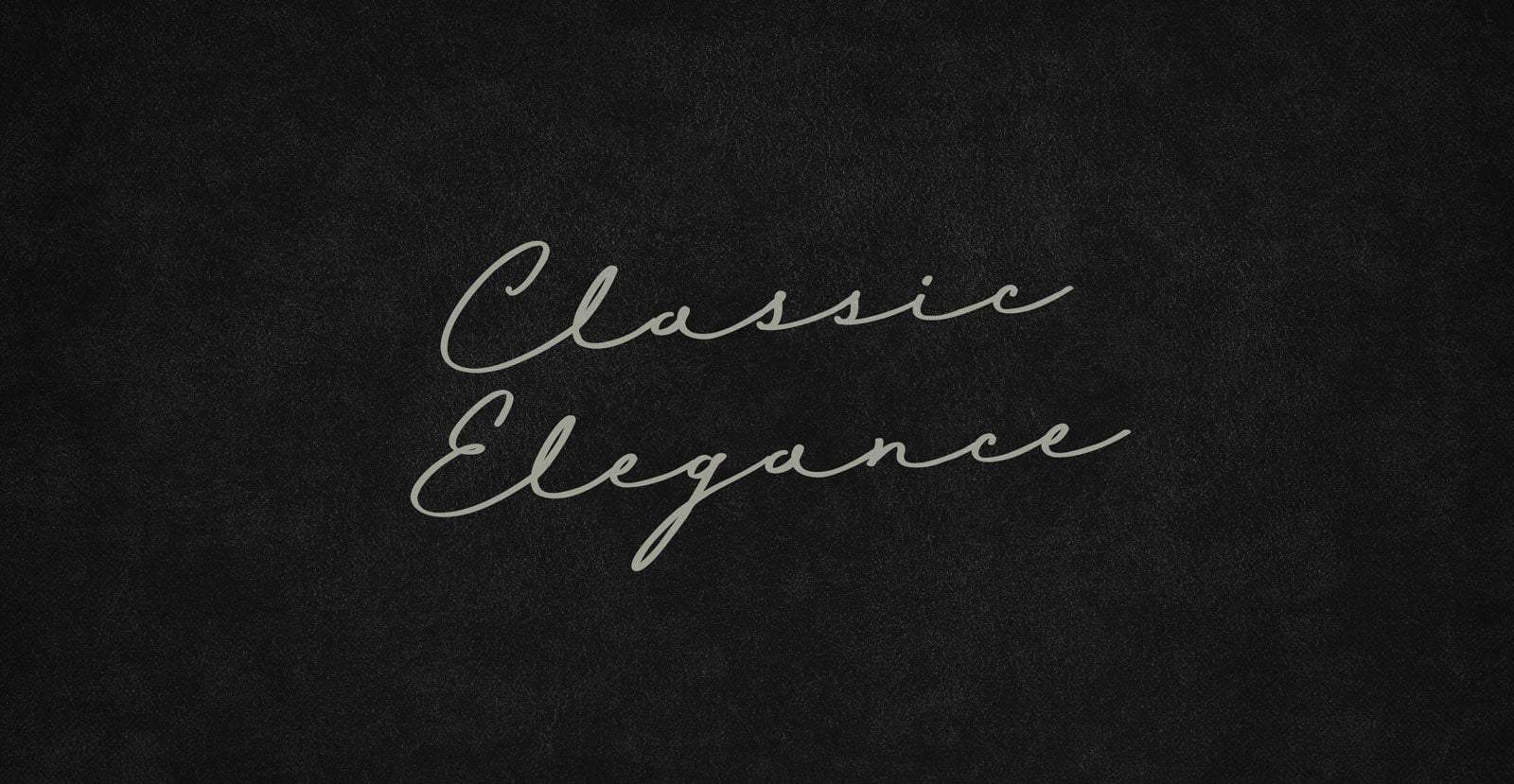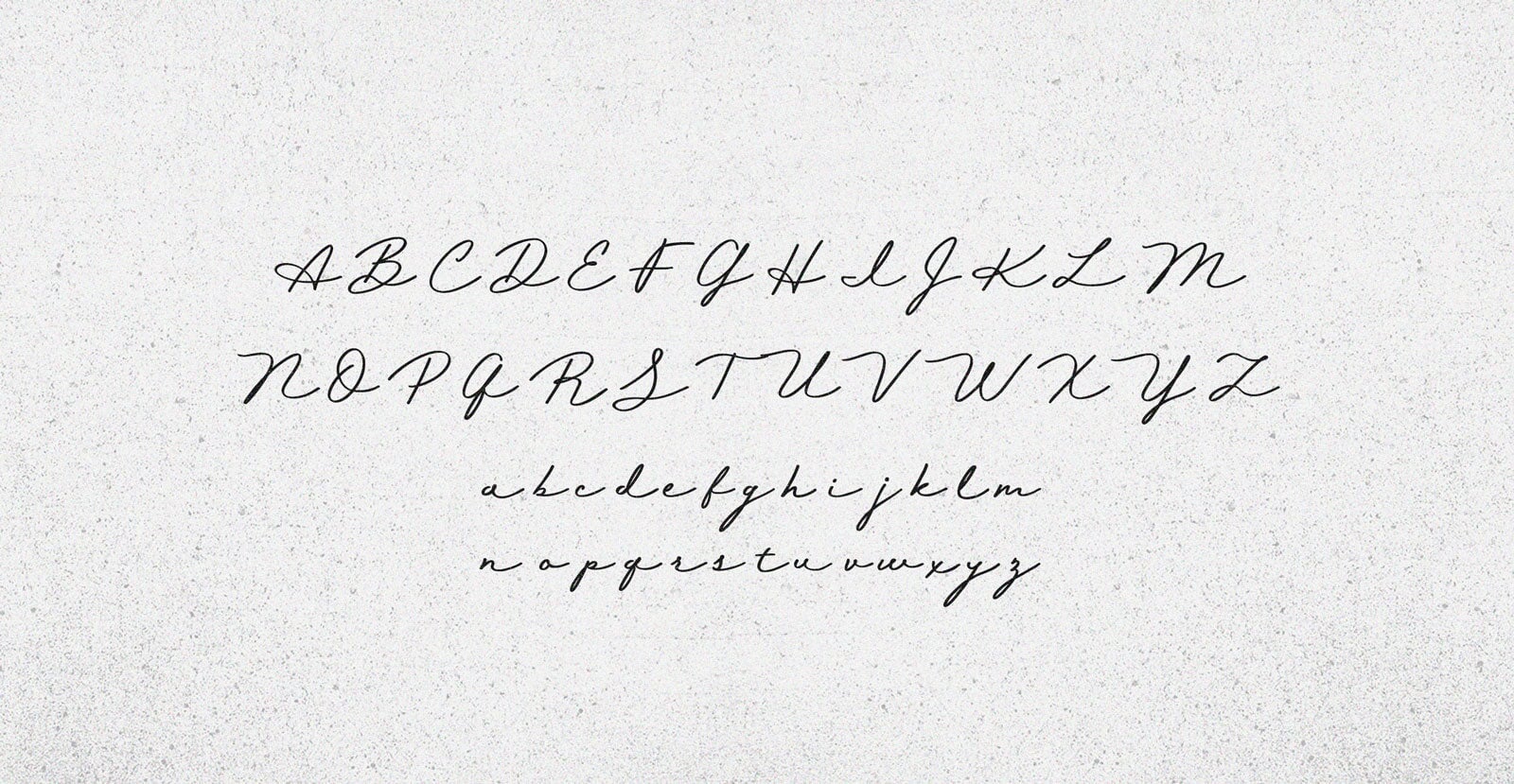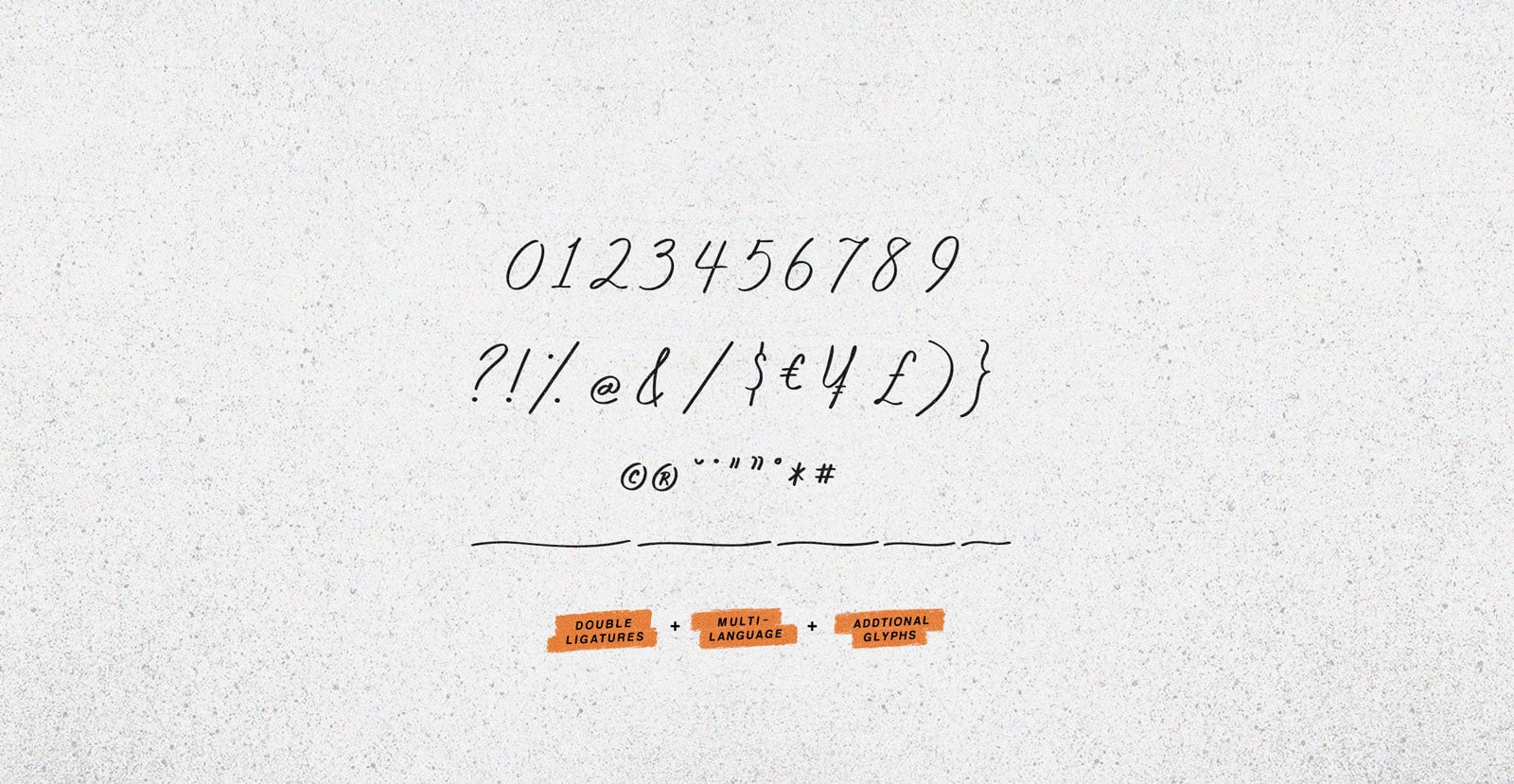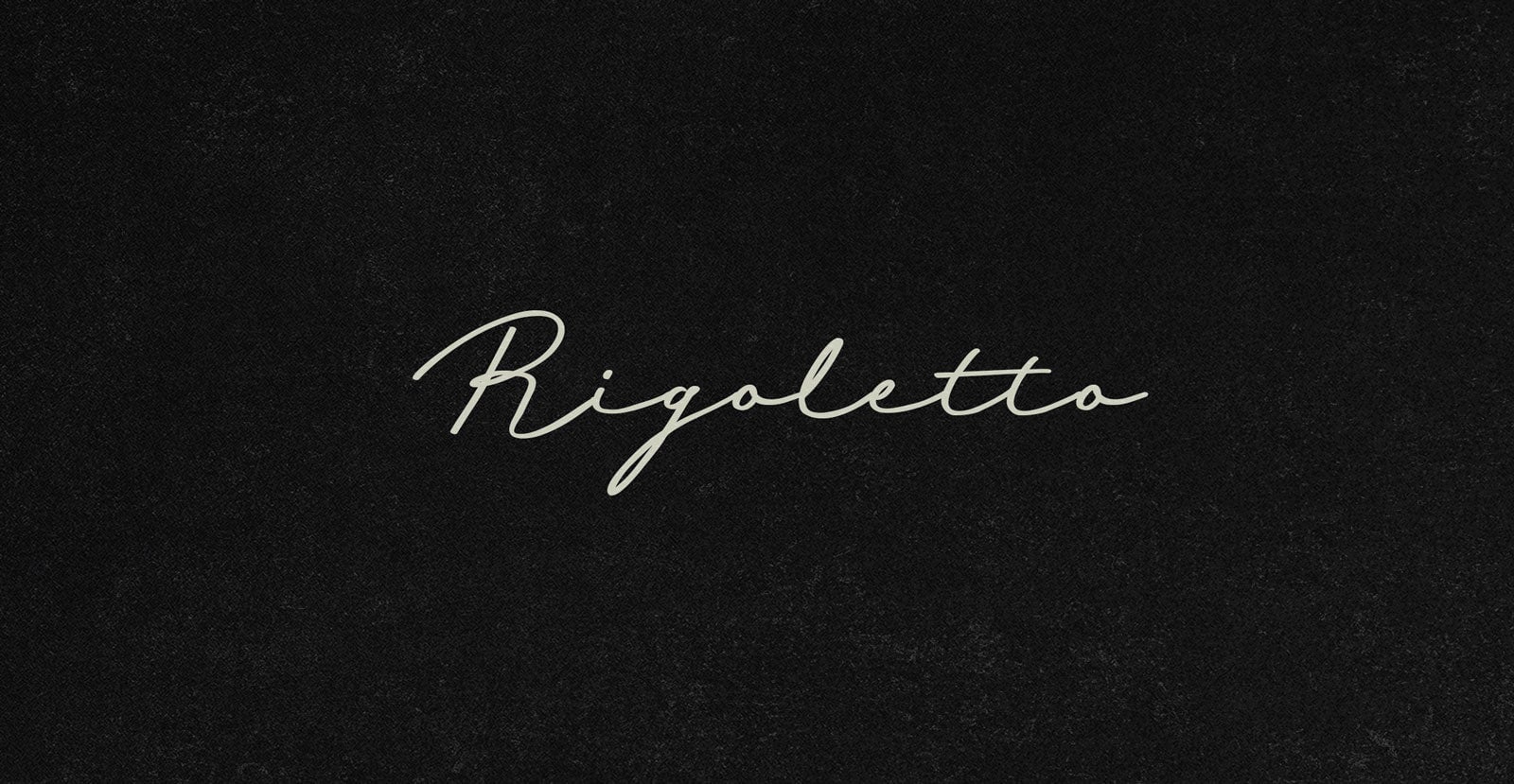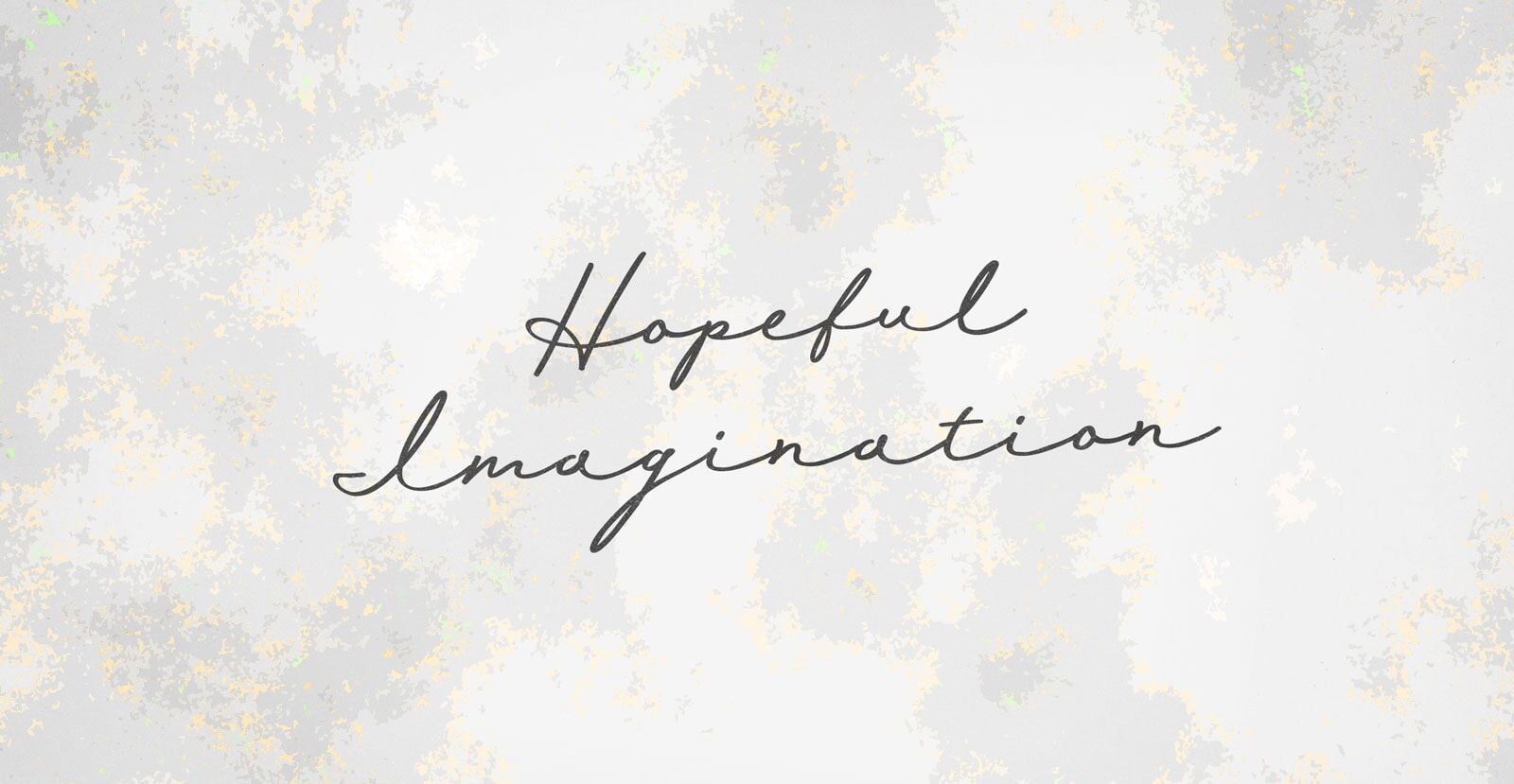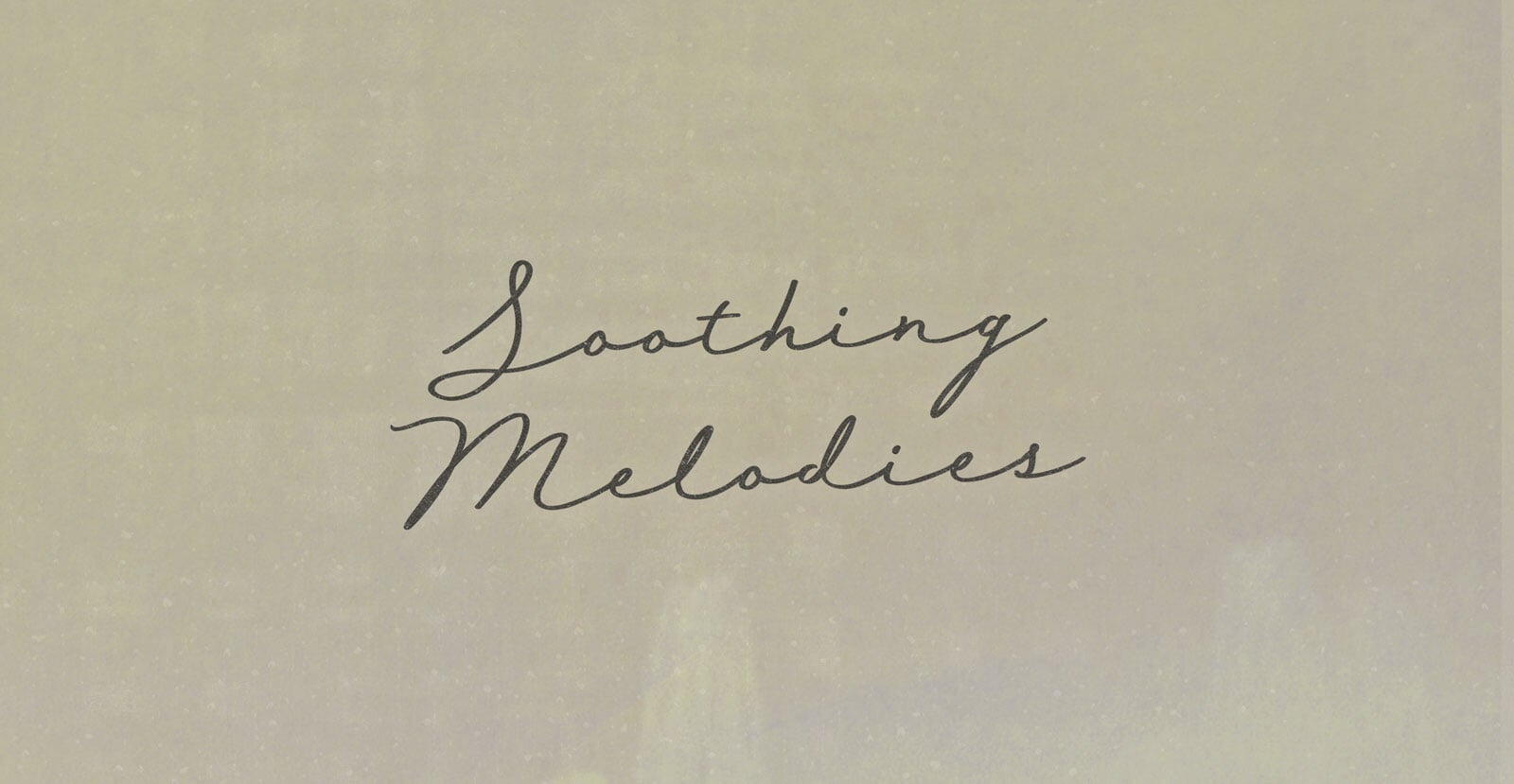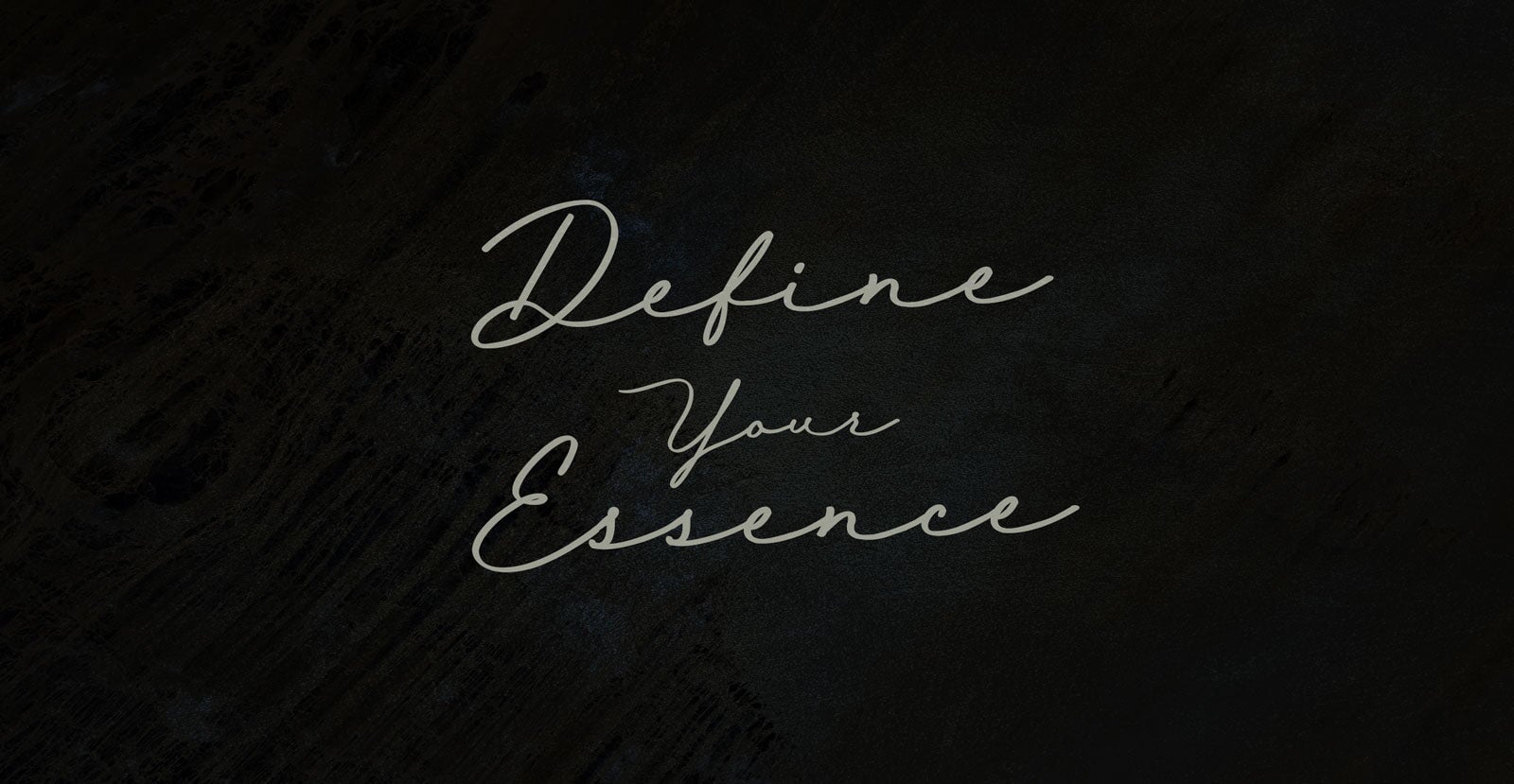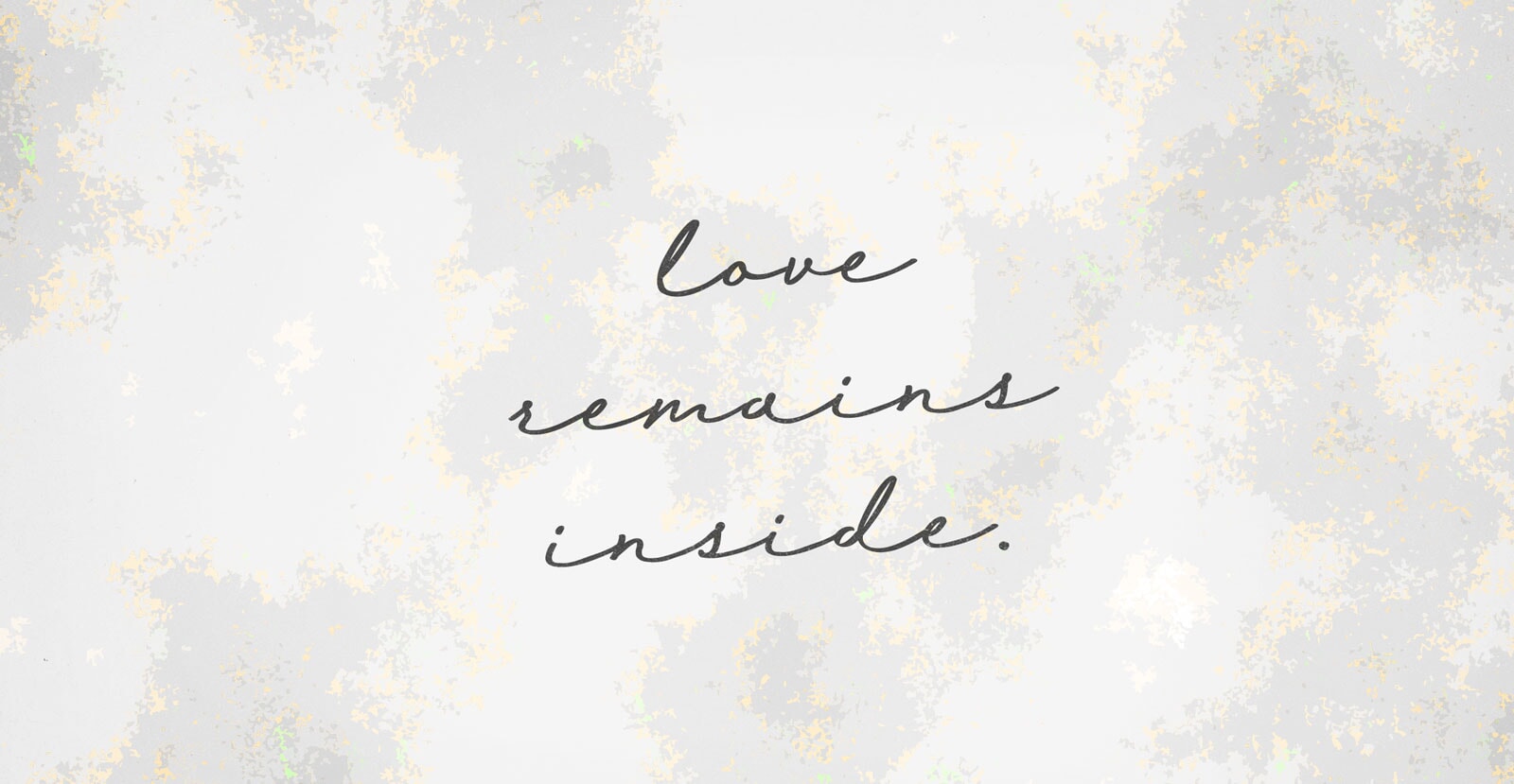
Classic Elegance
Handwritten Pen Script Font
Classic Elegance—where timeless style meets modern luxury. Impeccable craftsmanship, premium materials, and effortless sophistication ensure you stand out in every moment. Because true style never fades.